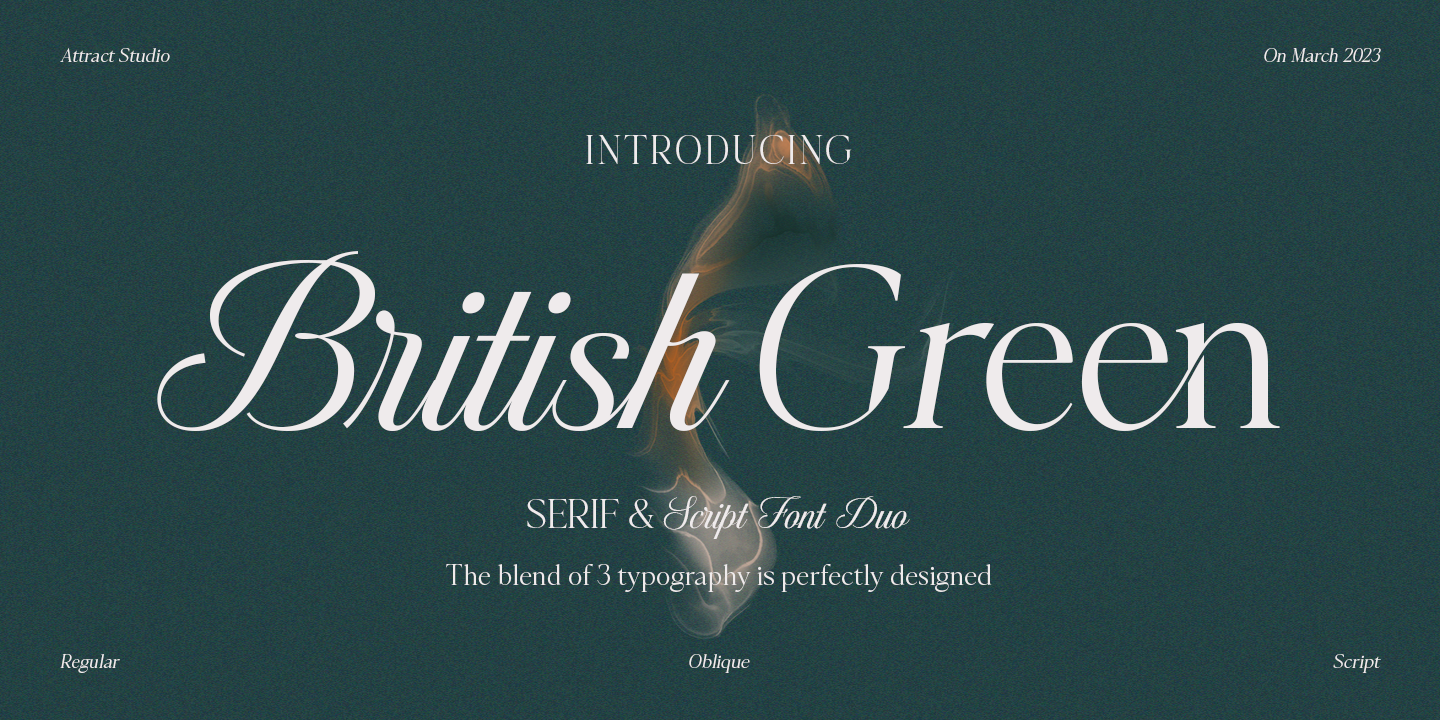
This sophisticated font duo—combining a classic serif with an elegant script—is perfect for branding projects, wedding invitations, book covers, high-end packaging, fashion lookbooks, and editorial spreads. Whether you’re working on a luxury logo or a timeless design piece, this pair delivers charm and professionalism.
What makes British Green Font Duo so exciting is the harmony it brings between tradition and modernity. The serif font delivers a sense of authority and heritage, while the script offers a soft, graceful flair. Used together, they create a refined visual language that feels both stately and stylish—ideal for premium design work.
The British Green Font Duo family includes two primary styles: a bold, sharp serif and a flowing, signature-style script. Both fonts come with full character sets, multilingual support, and ligatures, allowing you to create dynamic, well-balanced compositions across print and digital media.
For creatives in search of a font pairing that speaks elegance, prestige, and versatility, British Green Font Duo Free Download is an excellent option to test drive before purchasing. This duo can elevate everything from personal stationery to luxury branding projects, all while keeping your typography classy and cohesive.